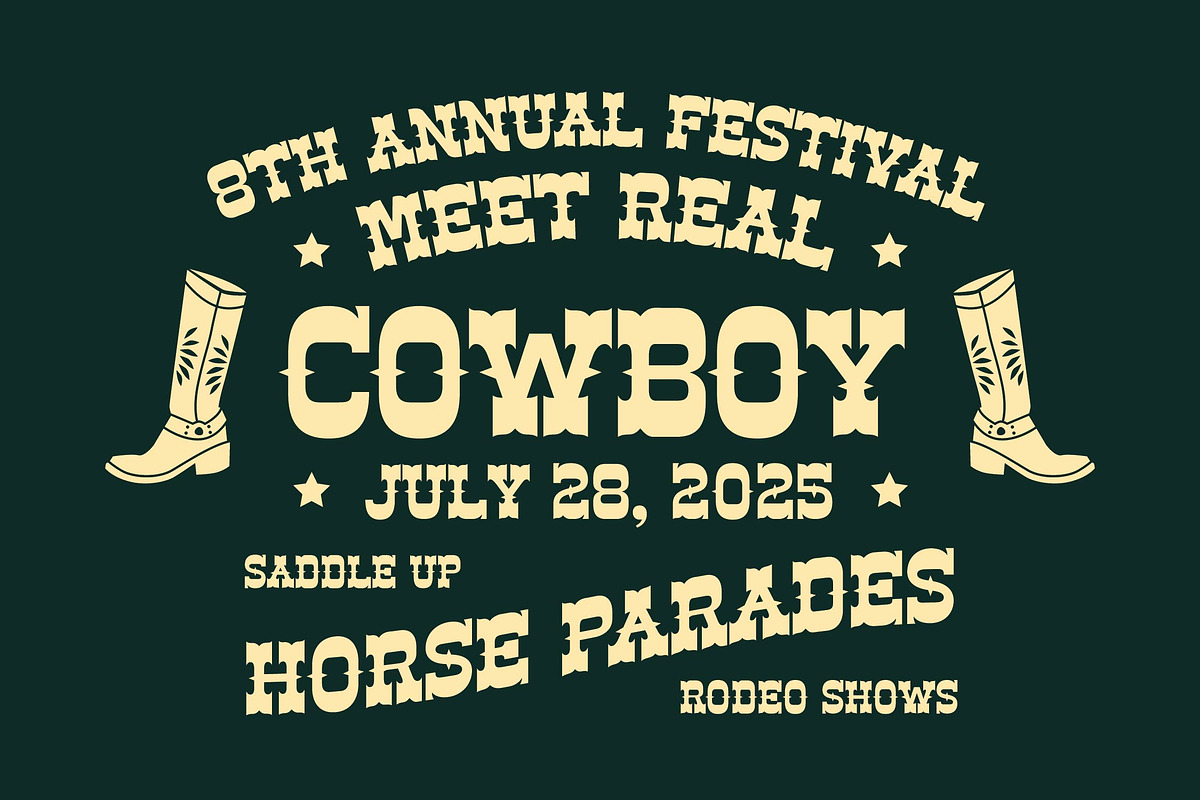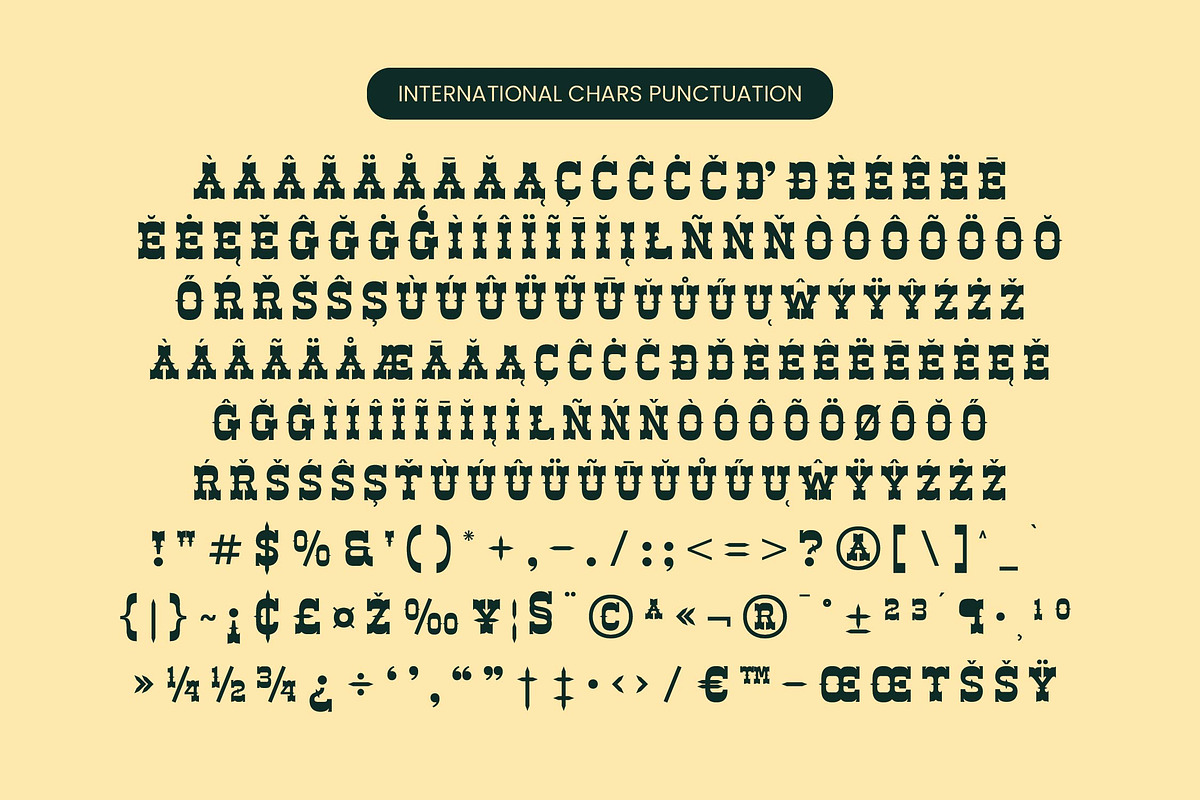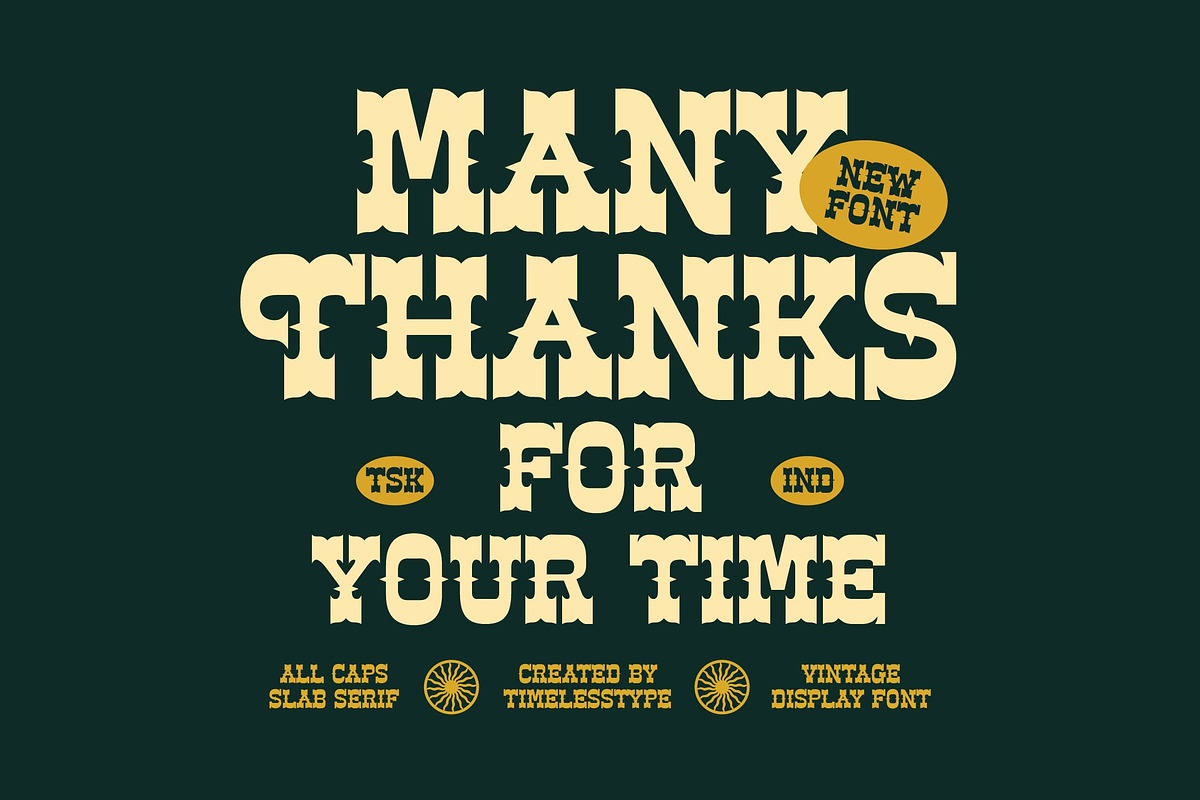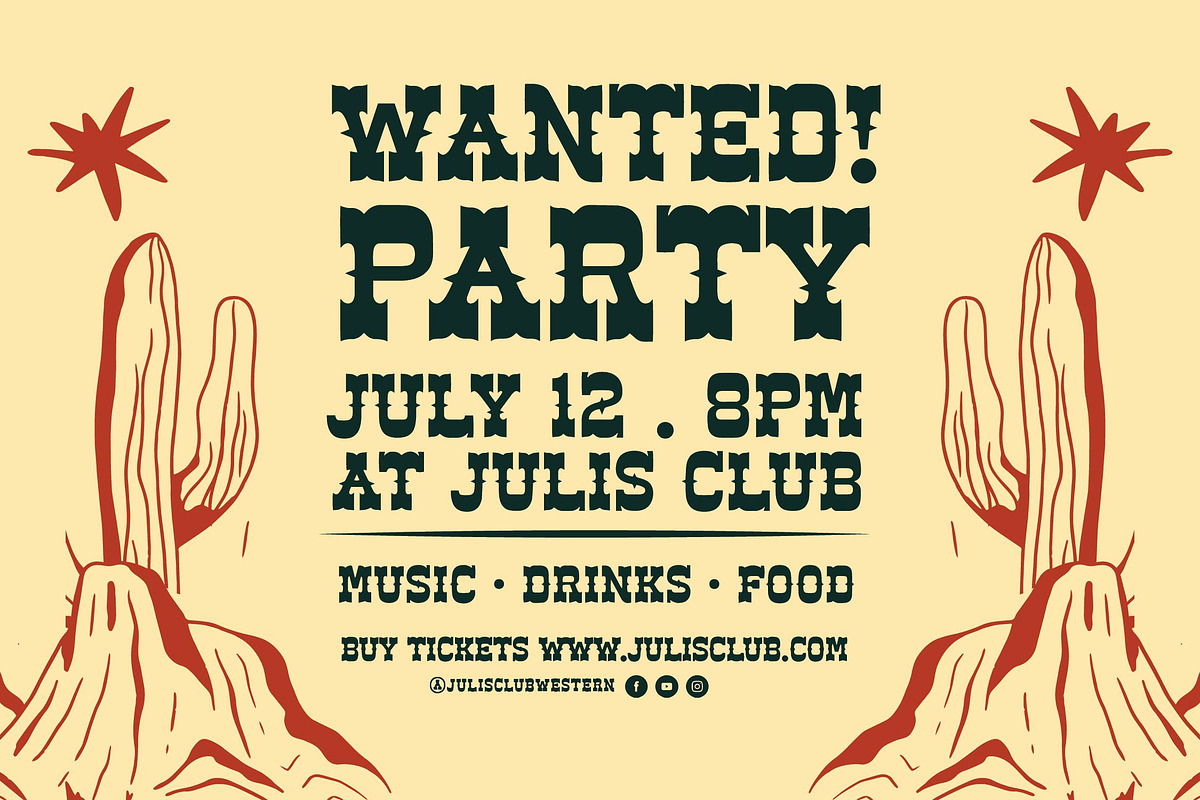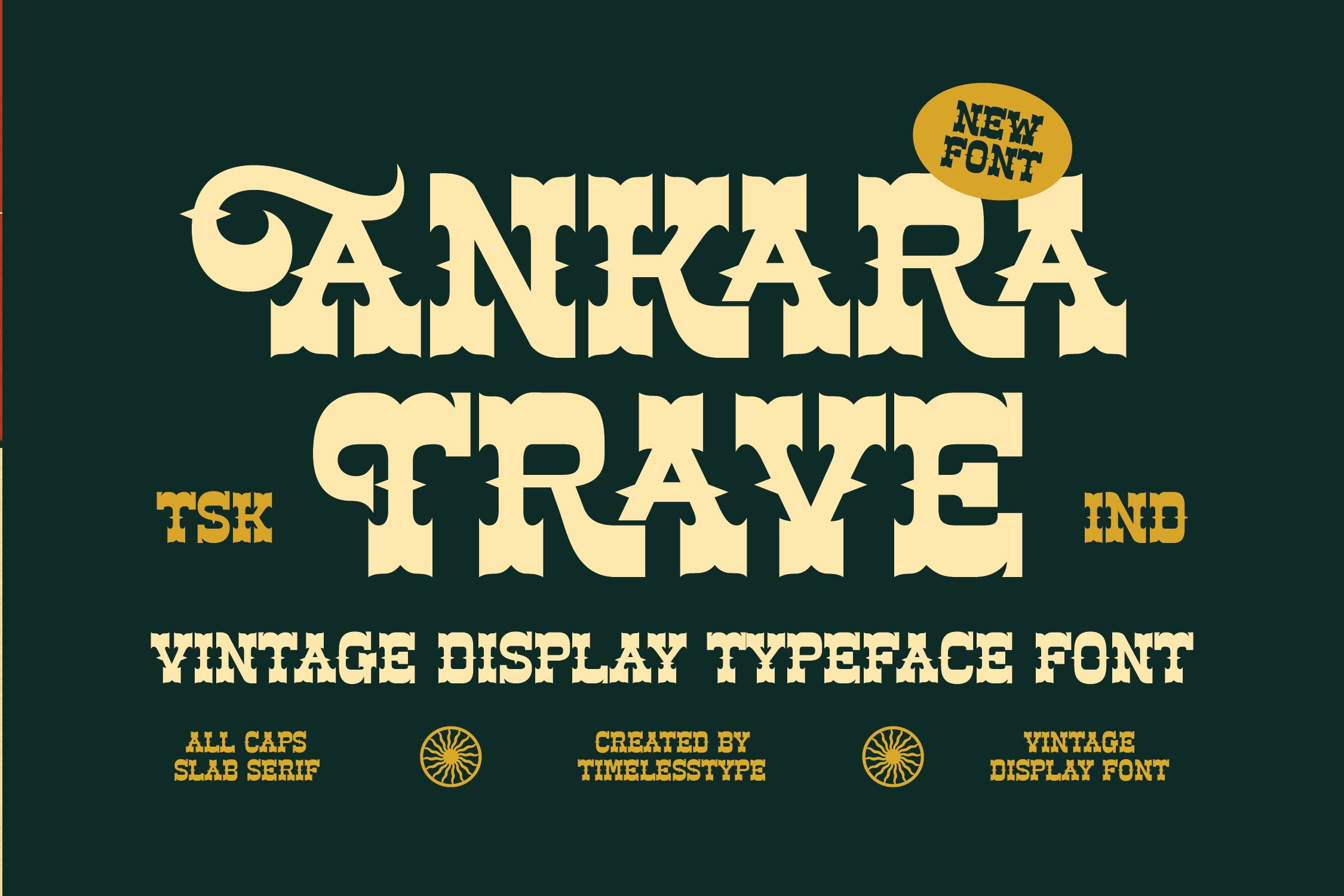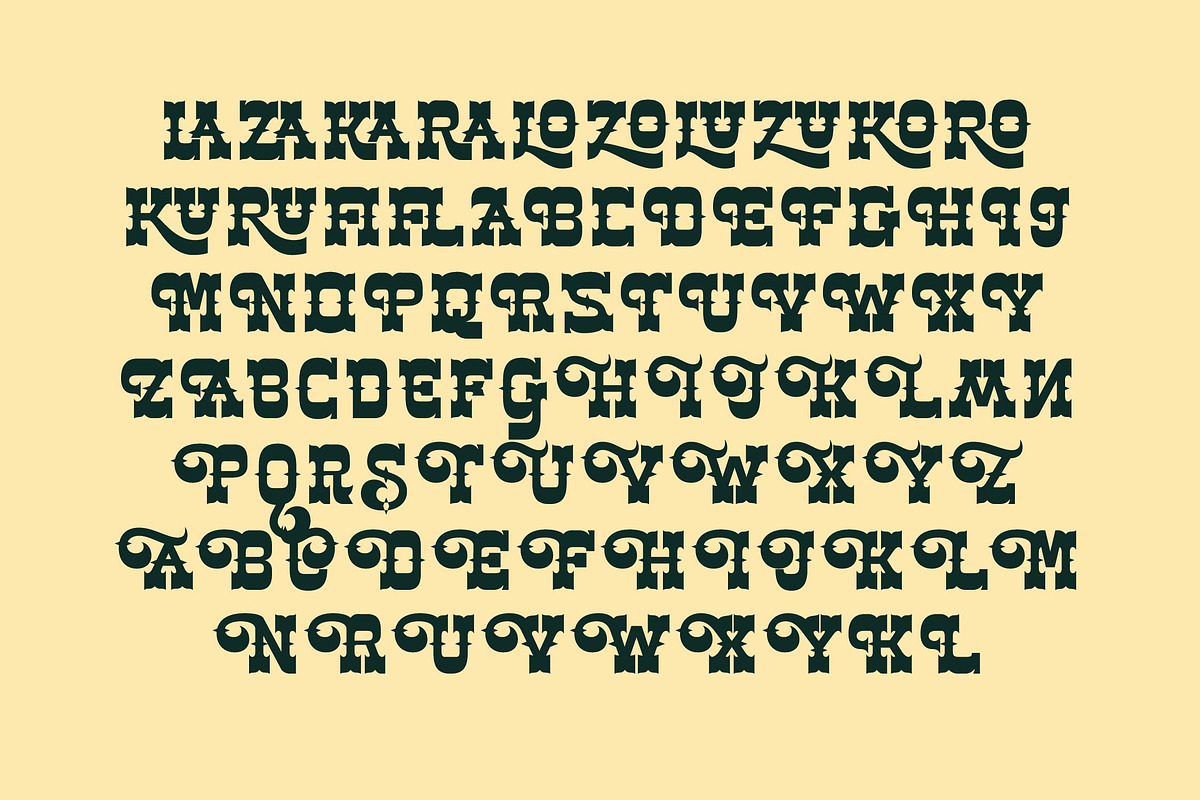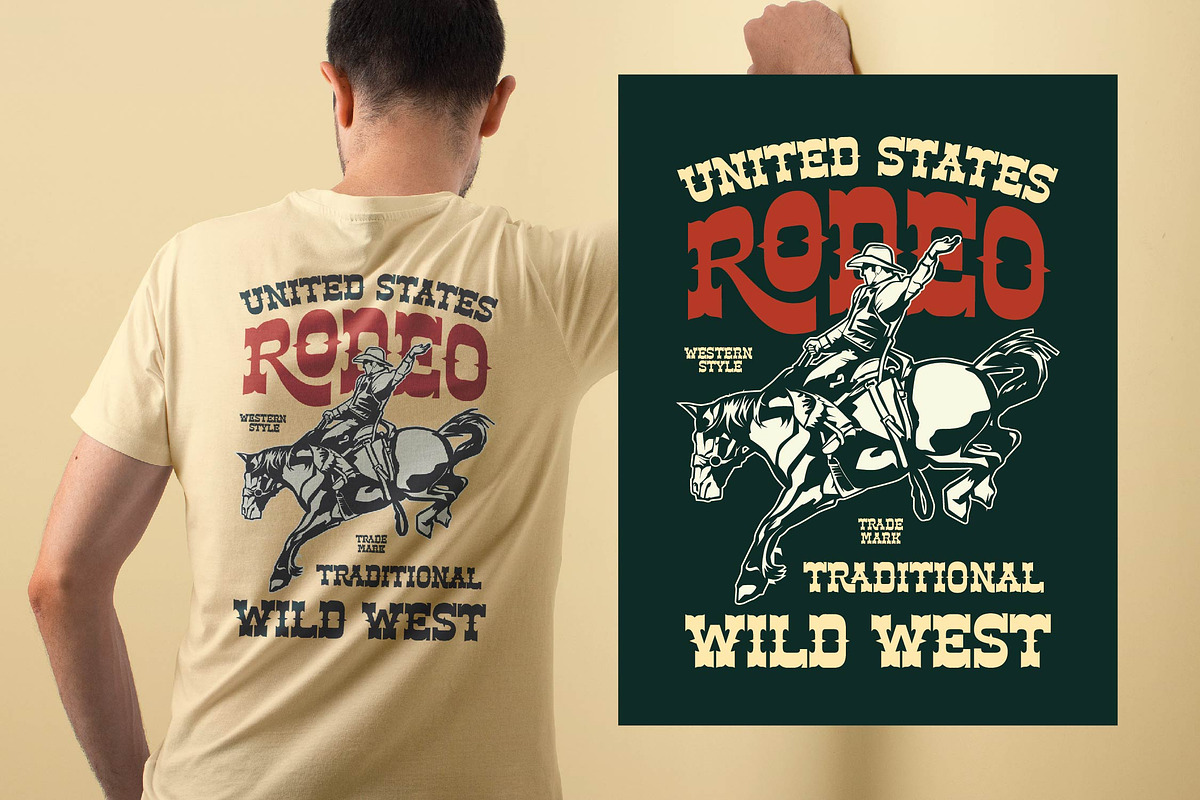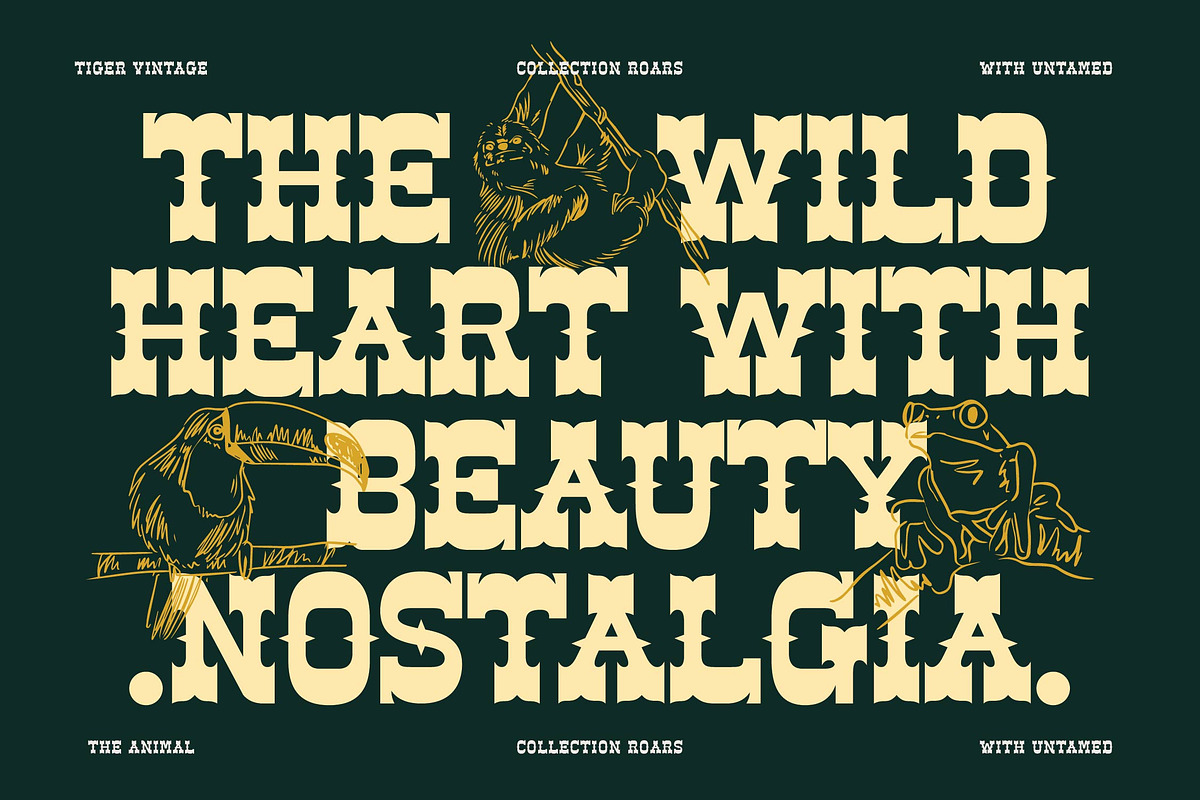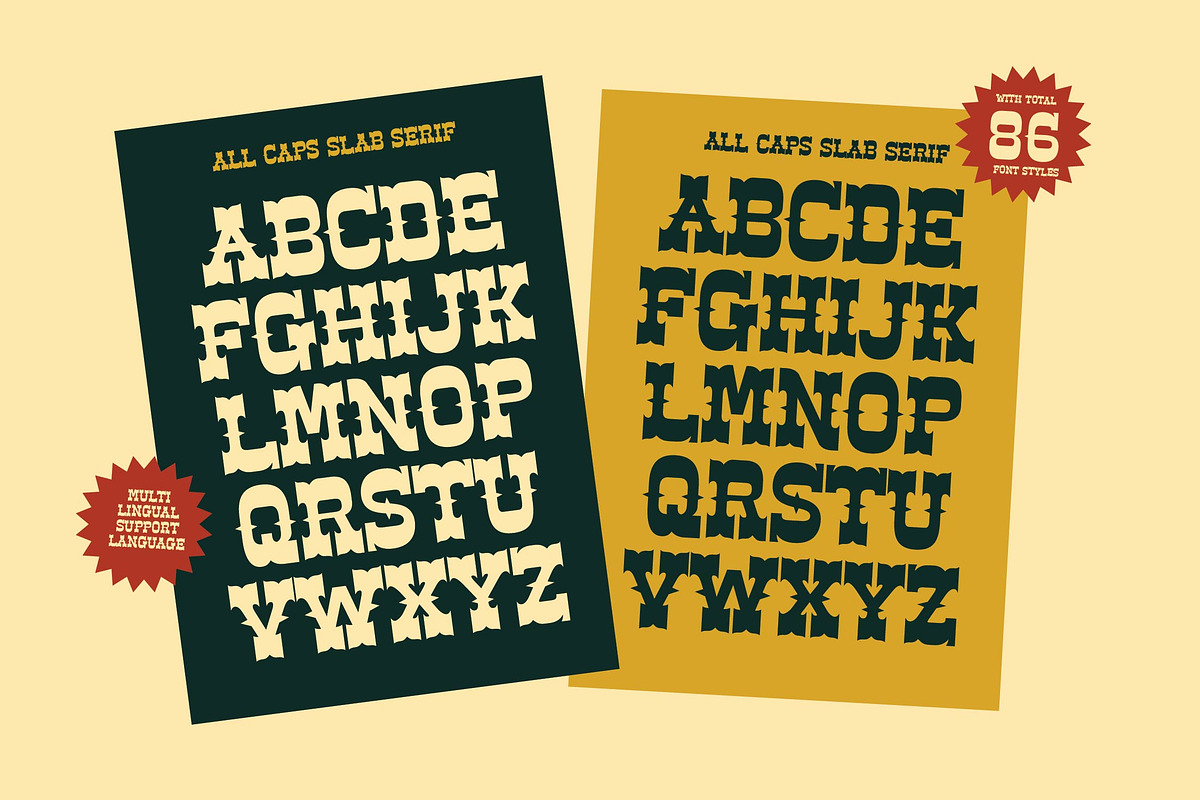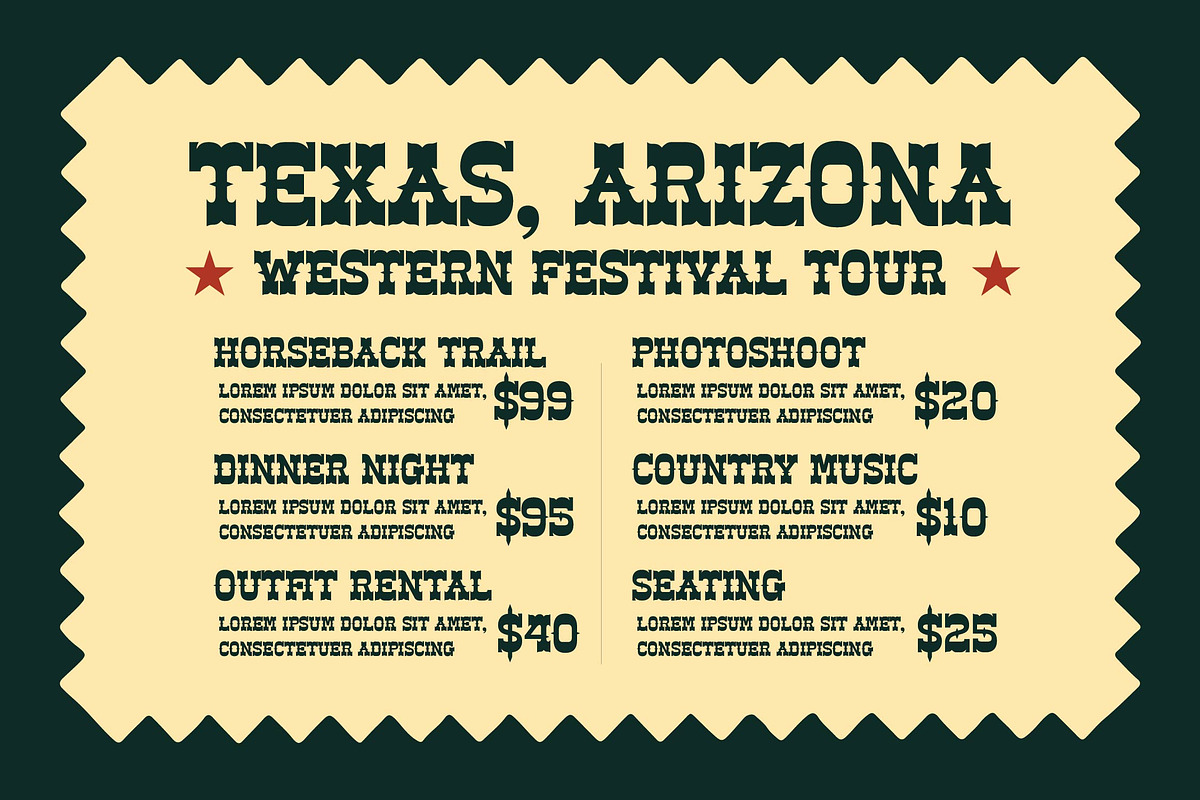
Ankara Trave Vintage Display Font
Step into a world of timeless elegance and bold character with Ankara Trave, a font designed to command attention and evoke a deep sense of visual heritage. It is more than just a typeface; it is a statement of craftsmanship that breathes life and authority into every creative layout it touches.
Inspired by the ornate signage of the Victorian era and the rugged charm of classic western woodblocks, this font captures the authentic spirit of traditional letterpress. The intricate detailing and robust slab serifs reflect a deep appreciation for historical design aesthetics while remaining perfectly relevant for high-end contemporary projects.
This modern serif display offers an unparalleled luxury typography experience, blending sharp structural angles with graceful decorative curves for maximum branding impact. Every character is meticulously crafted as a high-contrast serif that functions as a powerful editorial font for those seeking a unique and unforgettable visual identity.
Aligning perfectly with the current modern serif trend, this typeface meets the growing demand for character-driven typography that breaks away from minimalist norms. It stands at the forefront of editorial display fonts, offering designers a professional tool to create nostalgic yet forward-thinking compositions that resonate with today's audience.
From striking logo design and comprehensive branding systems to high-end packaging and sophisticated editorial spreads, its versatility knows no bounds. It adds a touch of rugged class to wedding invitations and brings a distinct, high-concept edge to fashion lookbooks and premium lifestyle magazines.
The package includes a rich set of ligatures and creative alternates that allow for deep customization and one-of-a-kind typographic lockups. With stunning swashes, full multilingual support, and a comprehensive range of international characters, it ensures your message is professionally communicated across the globe.